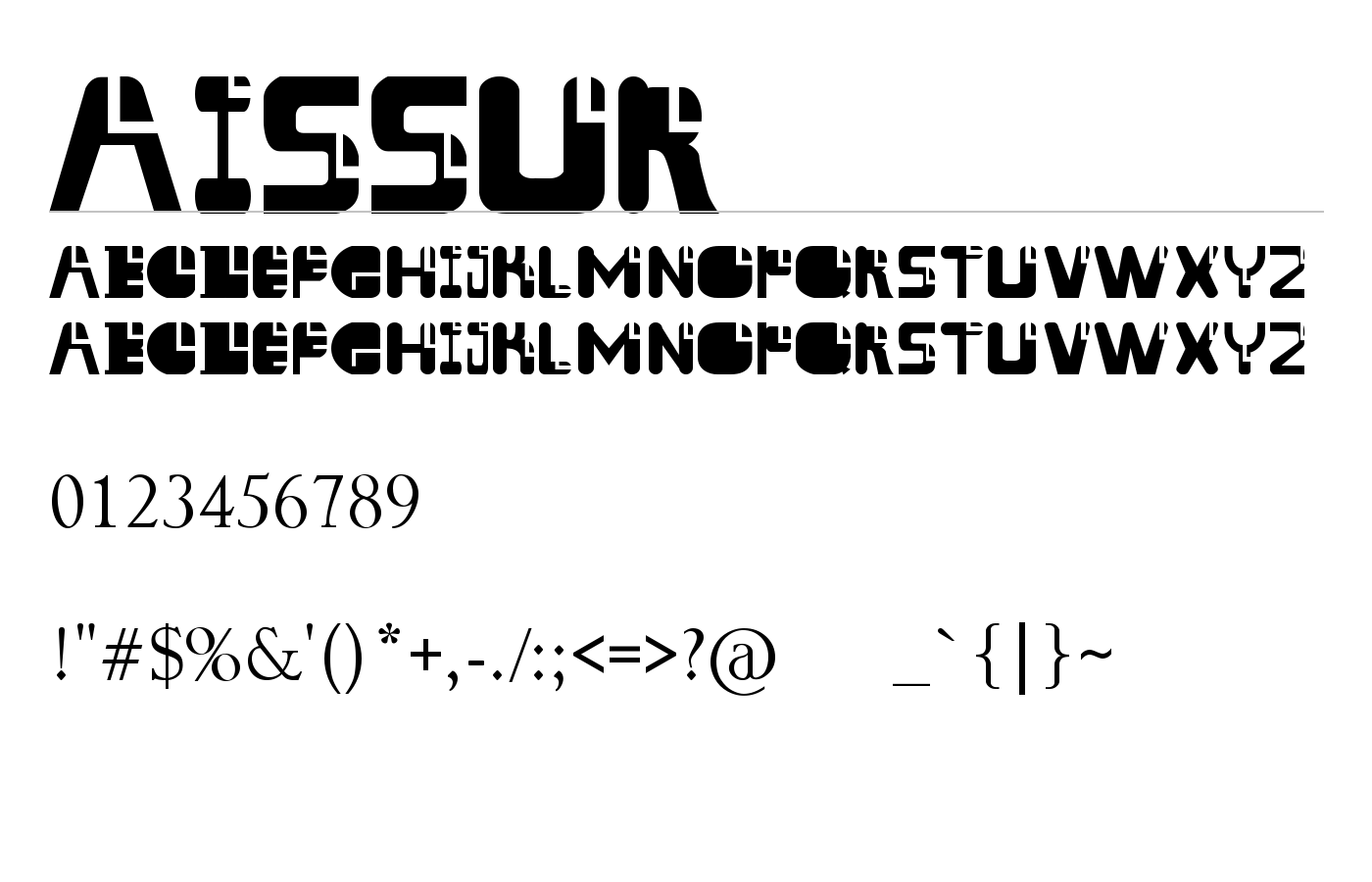
AISSUR is a bold, modern sans-serif font characterized by its heavy weight and high contrast with sharp, geometric cutouts that give it a futuristic, tech-inspired look. The uppercase letterforms feature unique, fragmented shapes that create a striking, edgy appearance ideal for eye-catching headlines, branding, and digital projects seeking a distinctive, modern vibe. This font works best where impact and originality are key, adding a creative, avant-garde feel to posters, logos, and editorial design.
AISSUR Font
About AISSUR Font